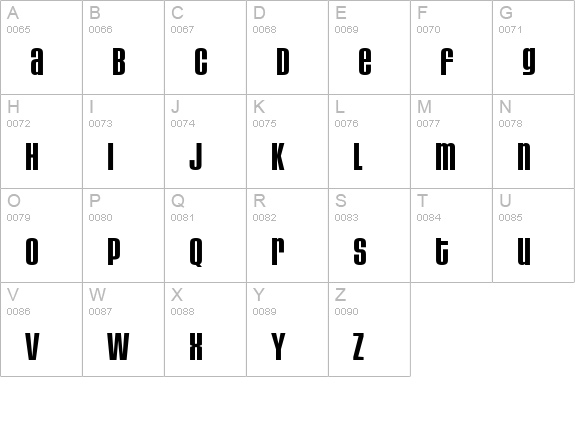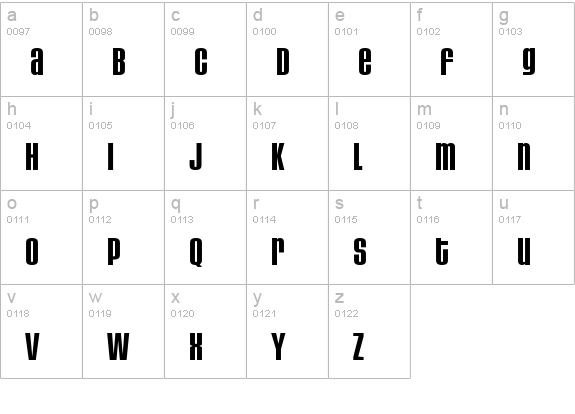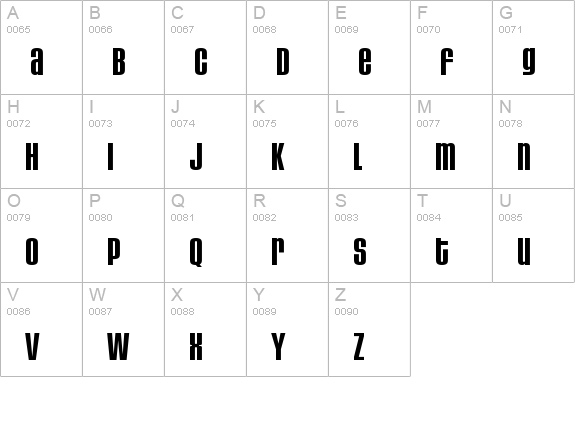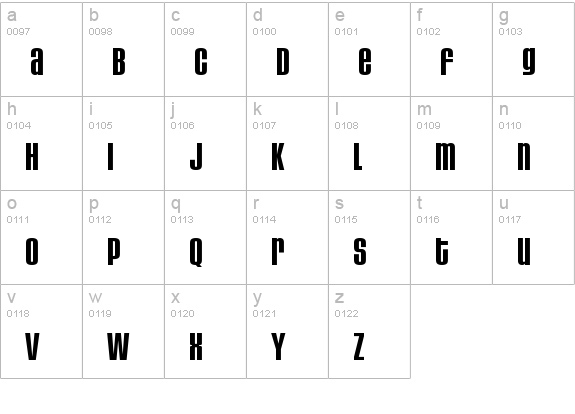
HouseGothic BoldAltCaps font is a striking and bold typeface that exudes a sense of strength and modernity. Its distinctive alt caps design adds a unique touch to any project, making it stand out from the crowd. Whether you're working on a poster, logo, or branding materials, this font is sure to make a statement. The sharp lines and geometric shapes of HouseGothic BoldAltCaps give it a futuristic and edgy feel, perfect for projects that require a contemporary aesthetic. Its versatility allows it to be used in a wide range of design applications, from print to digital media. Best of all, HouseGothic BoldAltCaps is available for free download at FontsMarket.com. Whether you're a professional designer or a hobbyist looking to enhance your projects, this font is a valuable addition to your toolkit. Don't miss out on the opportunity to access this unique and eye-catching font for your next creative endeavor.